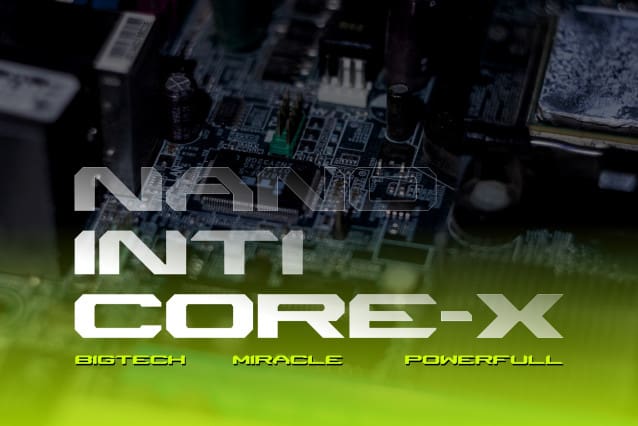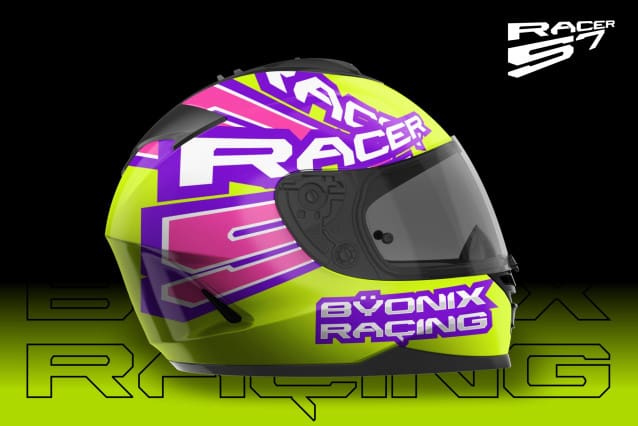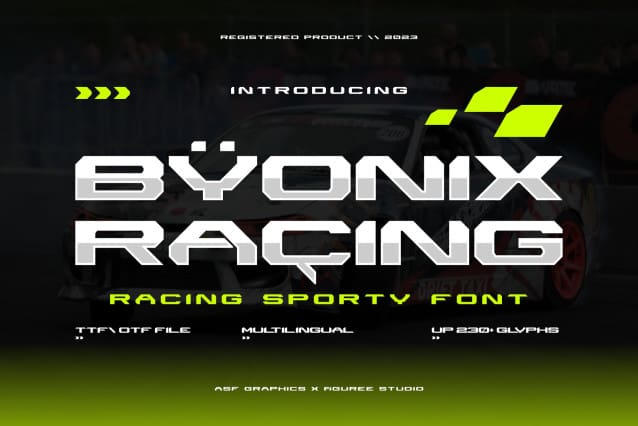
Byonix Racing Font
Byonix Racing Font – Racing Sporty Font for Bold Speed Design. Typography has the power to communicate motion, energy, and adrenaline. That’s why Byonix Racing – Racing Sporty Font was created. With extended strokes, bold geometry, and dynamic shapes, this racing sporty font is designed to capture the thrill of speed and the excitement of competition. From racing logos to sports event posters, Byonix Racing guarantees that your projects stand out with unstoppable energy.
This racing sporty font is engineered for impact. Every character is crafted in all caps, numbers, and punctuations, making it versatile for headlines, scoreboards, event banners, and competitive branding. Its sporty aesthetic, combined with multilingual support, ensures your message connects with audiences worldwide.
Racing Sporty Font with Dynamic Energy
Byonix Racing is more than just another display typeface. It is a racing sporty font created for bold branding and fast-moving designs. With sleek extended forms and sharp edges, it brings the aesthetics of motion to your layouts. Whether you’re working on motorsport graphics, athletic team branding, or esports visuals, Byonix Racing adds velocity and modern power to your typography.
This makes Byonix Racing the go-to racing sporty font for projects where strength and speed are non-negotiable.